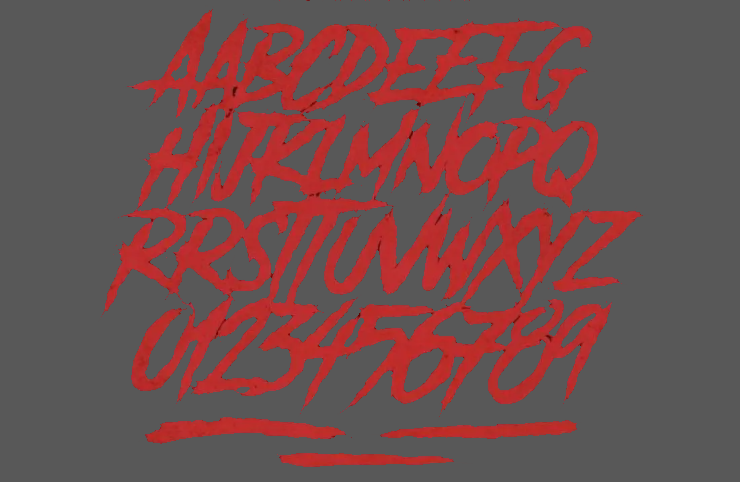
Another Danger Font
Another Danger Font, which falls under the category of bold and distressed fonts, is known for its rough and horror-like look. As noted previously, typography is an essential element of any brand, marketing, or designing campaign and this font excels in distinguishing itself among designers, content creators, and branding specialists aiming for strong visuals.
It’s commonly used for making posters, branding music, and in graphics for the entertainment world.
What is Another Danger Font?
Another Danger Font is a strong display typeface with a rough, edgy style.Its distinctive appearance draws from elements of horror, punk, and urban culture. It has rough edges coupled with distressed details that are perfectly defiant and alluring. Because of its eye-catching design, the font is extensively used in the entertainment and fashion industries.
Key Features of Another Danger Font
Another Danger Font commands attention with its raw and striking design.
Below are some of its standout features:
Edgy & Distressed Look – A rough, aggressive typeface perfect for high-energy visuals.
High-Impact Typography – Lettering that is easily read, thick and bold instantly stands out which is often necessary for branding and advertising.
Range of Application – Suited for posters and covers, streetwear design branding, as well as horror themed designs.
Combination of Grunge & Horror – The look blends distress with darkness which makes it good for thriller movies, punk rock aesthetics, and underground creative work.
Legible but Rough – The font is simple, thus easy to read when blown up, making it an ideal candidate for headlines and logos.
Applications of Another Danger Font
Designers and businesses use Another Danger Font in various creative projects, including:
Posters & Advertising – Ideal for bold marketing campaigns, event posters, and promotional banners.
Music & Entertainment Branding – Frequently used for album covers, band logos, and music festival promotions.
Social Media Graphics – Creates striking visuals for YouTube thumbnails, Instagram posts, and edgy digital ads.
T-Shirts & Merchandise – Commonly seen in streetwear, punk clothing brands, and alternative fashion.
Horror & Thriller Designs – A go-to font for movie posters, book covers, and spooky Halloween branding.
Conclusion: Another Danger Font
Another Danger Font is a striking, bold typeface that brings a rough and edgy vibe to your designs.Its grunge, horror, and rebellious aesthetics make it a go-to choice for posters, music branding, streetwear, and entertainment graphics. Whether you’re a designer, marketer, or content creator, this font can elevate your creative projects with a strong visual presence.